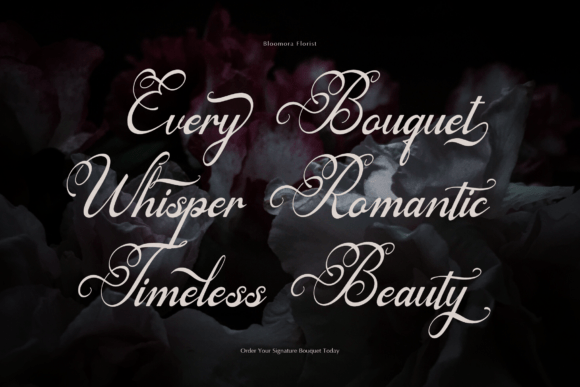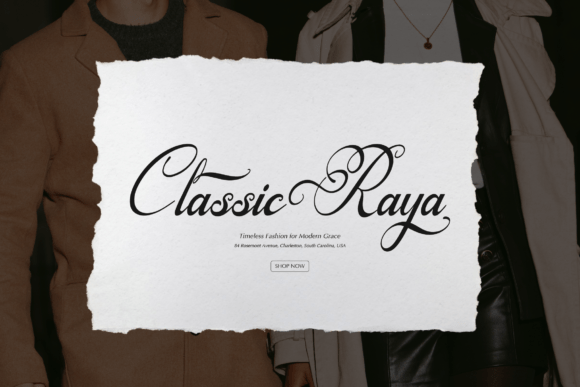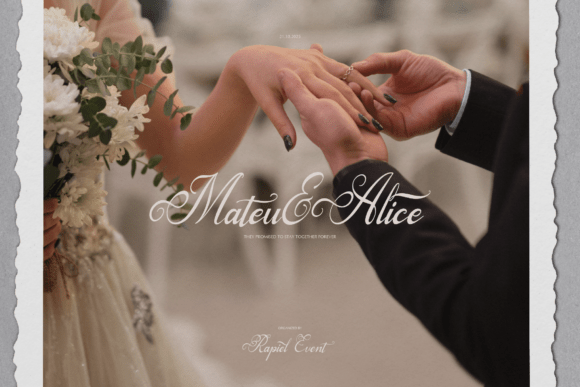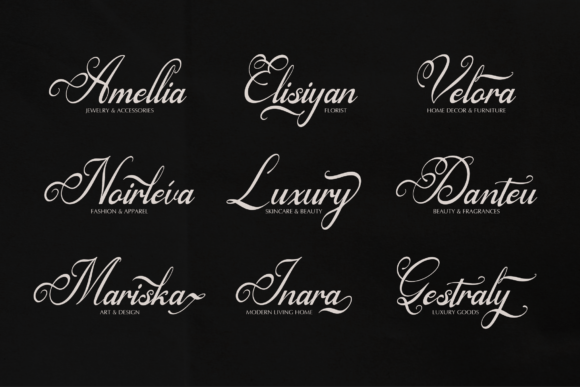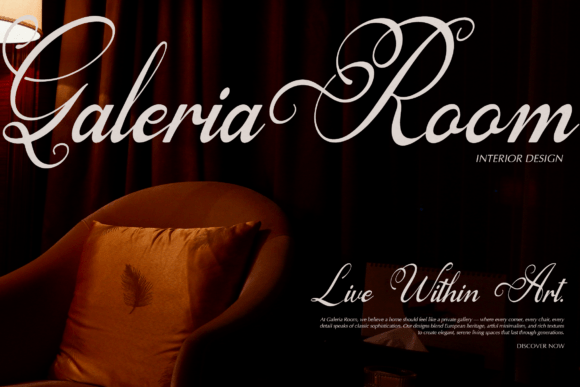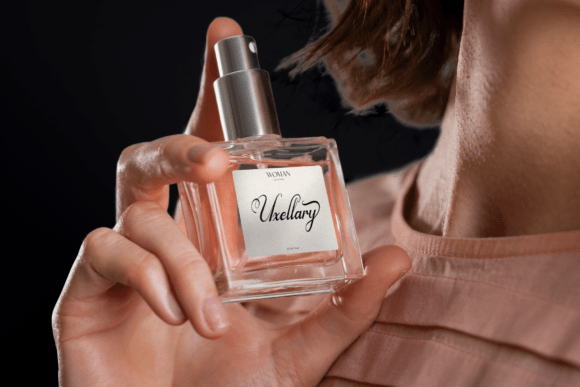
Discover the Elegance of Arthemy Rorelia Font: Elevate Your Designs with Beautiful Calligraphy
In the world of design, typography plays a crucial role in conveying messages, expressing creativity, and capturing the essence of a brand or project. For designers and crafters seeking to add a touch of elegance and sophistication to their work, the Arthemy Rorelia Font is an exceptional choice. This stunning calligraphy font, crafted by Denustudios, is versatile and suitable for a wide range of projects, from logos and branding to homeware designs, product packaging, and more.
The Beauty of Arthemy Rorelia Font
Arthemy Rorelia Font boasts beautiful, flowing script letters that exude elegance and refinement. Its unique and distinctive style makes it perfect for designers looking to add a personal touch to their creations. Whether you’re working on a logo, a quote, or a poster, this font is sure to make your project stand out. The intricate details and smooth lines of Arthemy Rorelia Font ensure that your designs not only look professional but also captivating.
One of the key advantages of Arthemy Rorelia Font is its incredible versatility. It can be used across various mediums and projects, including:
- Logos and Branding Projects: Create a lasting impression with a unique and memorable logo that reflects your brand’s personality.
- Homeware Designs: Add a touch of elegance to your home decor with custom designs that showcase your personal style.
- Product Packaging: Make your products stand out on store shelves with beautiful, custom packaging.
- Mugs, T-shirts, and Merchandise: Offer your customers unique and stylish merchandise that they’ll love.
- Quotes and Posters: Create inspiring and visually appealing quotes and posters that capture the essence of your message.
- Shopping Bags, Book Covers, and More: Elevate your designs with a font that adds a touch of sophistication to any project.
Why Choose Arthemy Rorelia Font?
There are several reasons why designers and crafters choose Arthemy Rorelia Font for their projects:
- Unique Style: The font’s distinctive calligraphy style ensures that your designs stand out from the crowd.
- Ease of Use: Arthemy Rorelia Font is easy to integrate into your designs, making it perfect for both beginners and professionals.
- High-Quality: The font is crafted with attention to detail, ensuring that it looks great in any size or application.
- Support for Various Projects: From digital designs to print materials, Arthemy Rorelia Font is versatile enough to meet all your design needs.
Tips for Using Arthemy Rorelia Font
To get the most out of Arthemy Rorelia Font, consider the following tips:
- Combine with Other Fonts: Pair Arthemy Rorelia Font with complementary fonts to create visually appealing and balanced designs.
- Experiment with Colors: The font looks great in various colors, so don’t be afraid to experiment and find the perfect hue for your project.
- Pay Attention to Spacing: Ensure that your text is easy to read by adjusting the spacing between letters and lines.
Arthemy Rorelia Font from Denustudios is a beautiful calligraphy font that can elevate any design project. Its elegance, versatility, and unique style make it an excellent choice for designers and crafters looking to add a touch of sophistication to their work. Whether you’re creating logos, branding materials, homeware designs, or any other project, Arthemy Rorelia Font is sure to impress. Discover the beauty of this stunning font and take your designs to the next level.